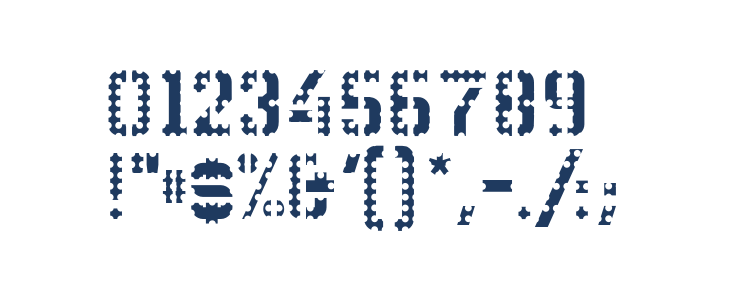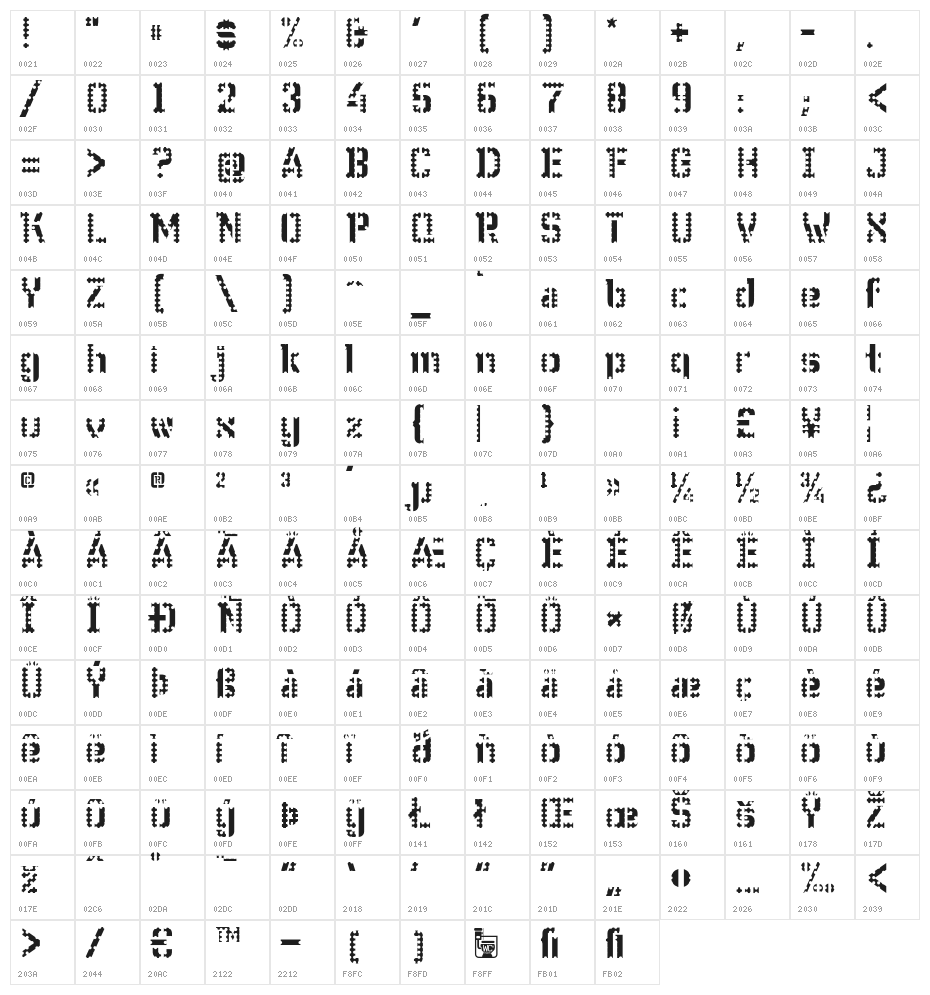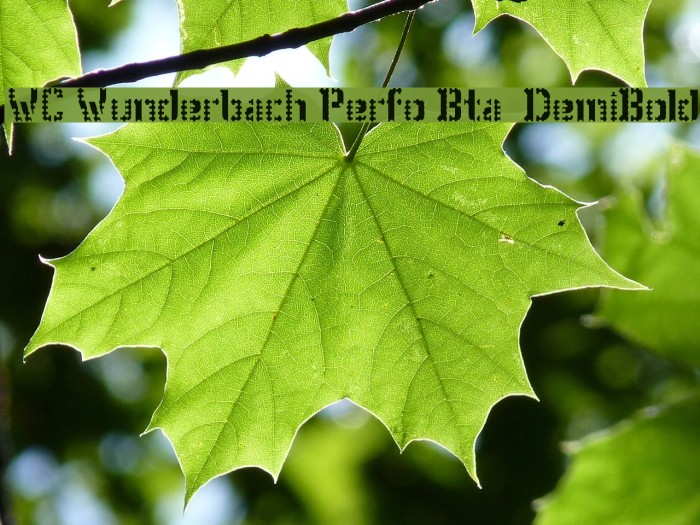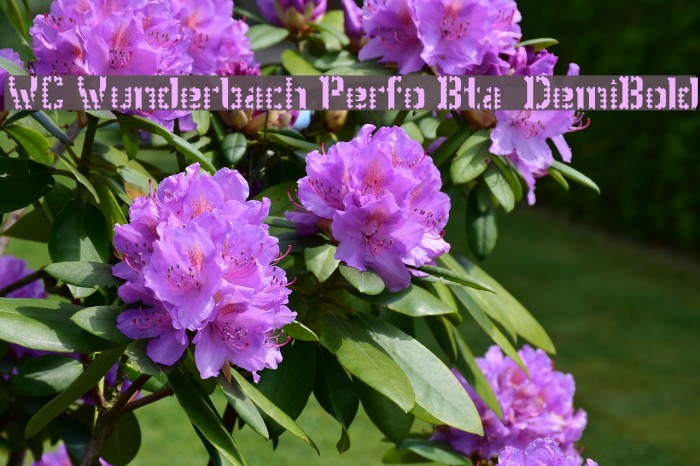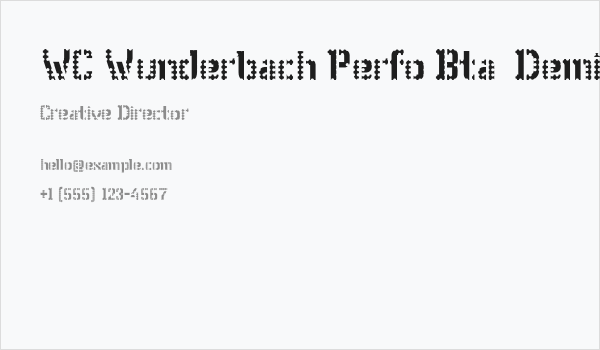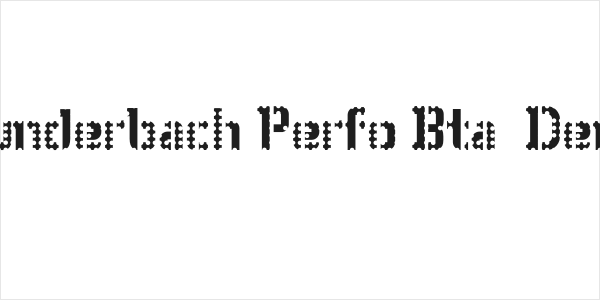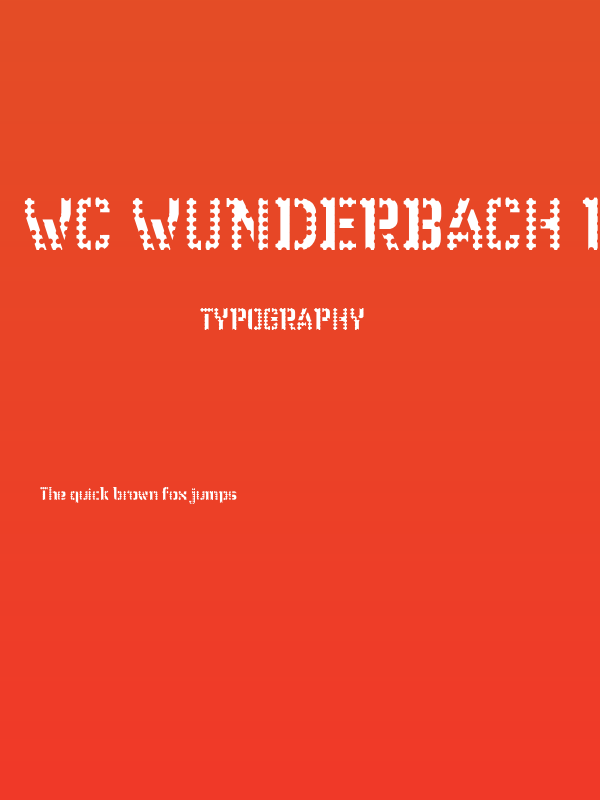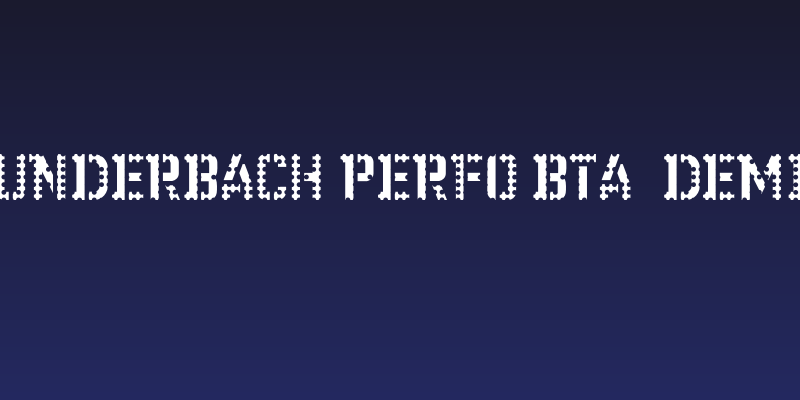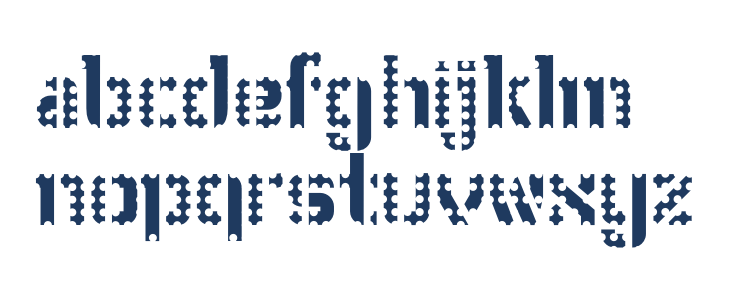
WC Wunderbach Perfo Bta DemiBold Font
WC Wunderbach Perfo Bta DemiBold Description
This font features a bold and unique design with a perforated, stencil-like appearance. Each character is constructed with a series of circular cutouts, giving it a distinctive and industrial feel. The uppercase and lowercase letters maintain a consistent style, while the numbers and special characters follow the same perforated theme. The font's boldness and geometric shapes make it stand out, ideal for attention-grabbing designs. Its decorative nature is perfect for projects that require a strong visual impact.
| Proposed Projects | Ideal for posters, logos, branding, and any design requiring a bold, industrial aesthetic. |